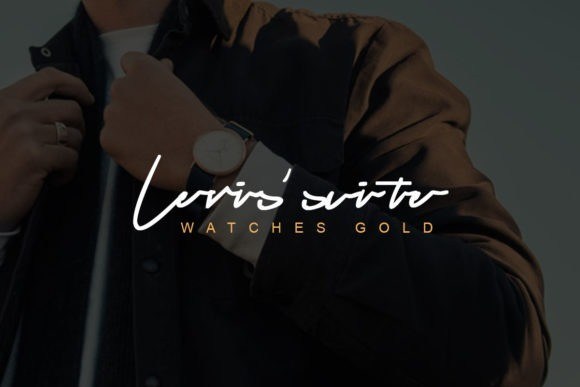
Tanda Tangan Font
Here is the Tanda Tangan Font that is famous for its pairing function and it is also a member of the CSS family. This is also listed inside google fonts. However, its smooth simplicity belies a deeper stage of element. Wherein suitable, the letters seem like moskova font has been designed with subtle notches that can be determined on the intersections of lines.
This produces sharper right angles that make greater complicated characters better mentioned. It is encouraged by using vintage lettering with lowercases and in addition a little of a victorian flair. Tanda Tangan Font Free This percentage additionally comes with some exchange variations in each diminish and top cases that add in swirl flourishes, for added flowery consequences. It’s installed on handwriting with an introduced experience of calligraphic flair.
Difficult and dependent at the identical time. That is an established typeface that can appear suitable on an interior layout magazine cowl. It points letters that comprise a mixture of thick and skinny strokes. This final results in a font that’s easy to study.
Download This takes the concept from the font this is similar to atiba font of early printing generation, displaying textual content that has a pretty thin stroke, however with adequate element to be thoroughly legible as a show font for net pages. Every stroke has as a minimum a slight curve, permitting each and every letter to flow into the following. Milkshake is bendy for any issue, its thickness pairing well with a busy historical past if desired. Use this typeface if you need to make a bold declaration.